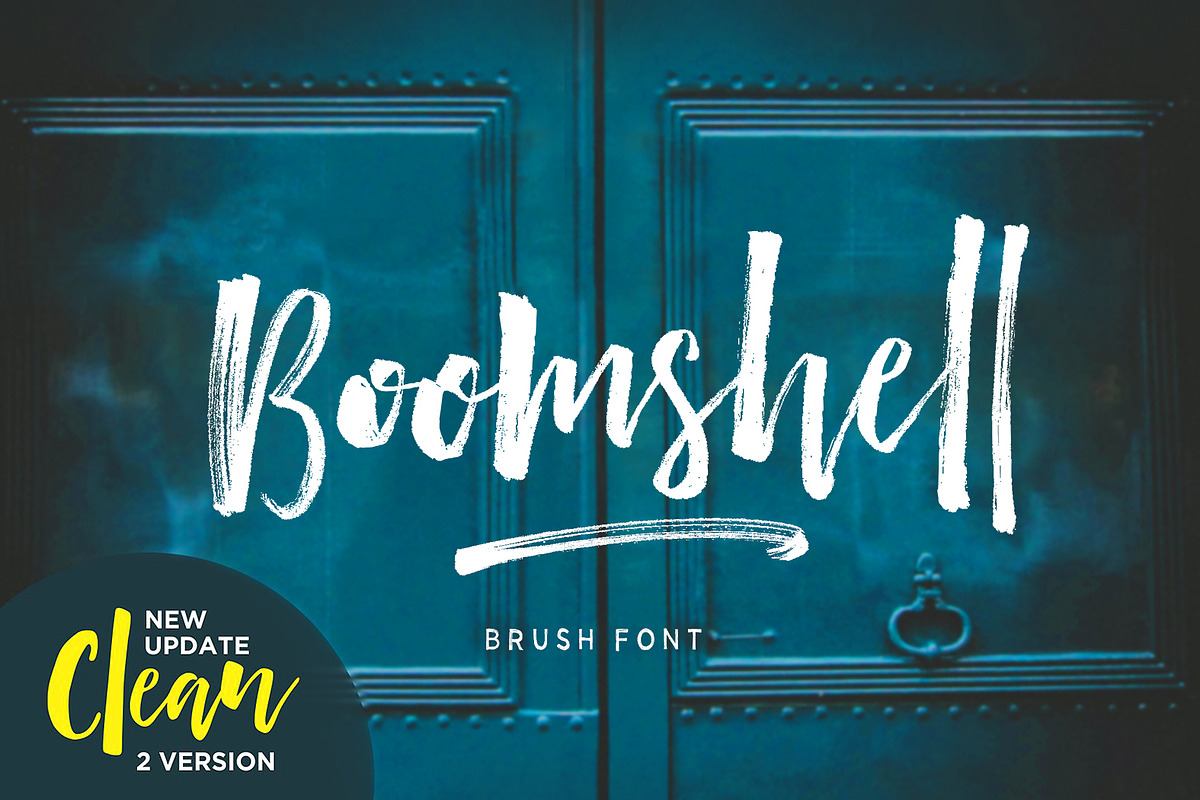
Boomshell Brush Font Free Download is a bold, energetic typeface with a raw, hand-painted style that commands attention. With thick strokes, rough textures, and dynamic movement, this font is ideal for posters, streetwear branding, music covers, sports graphics, and any design that needs a fierce, rebellious edge.
Its brush script feel adds an authentic handmade touch while still maintaining legibility, even at larger sizes. Whether you're going for grunge, urban, or edgy vibes, Boomshell brings a powerful presence that amplifies your message and gives your design serious attitude.